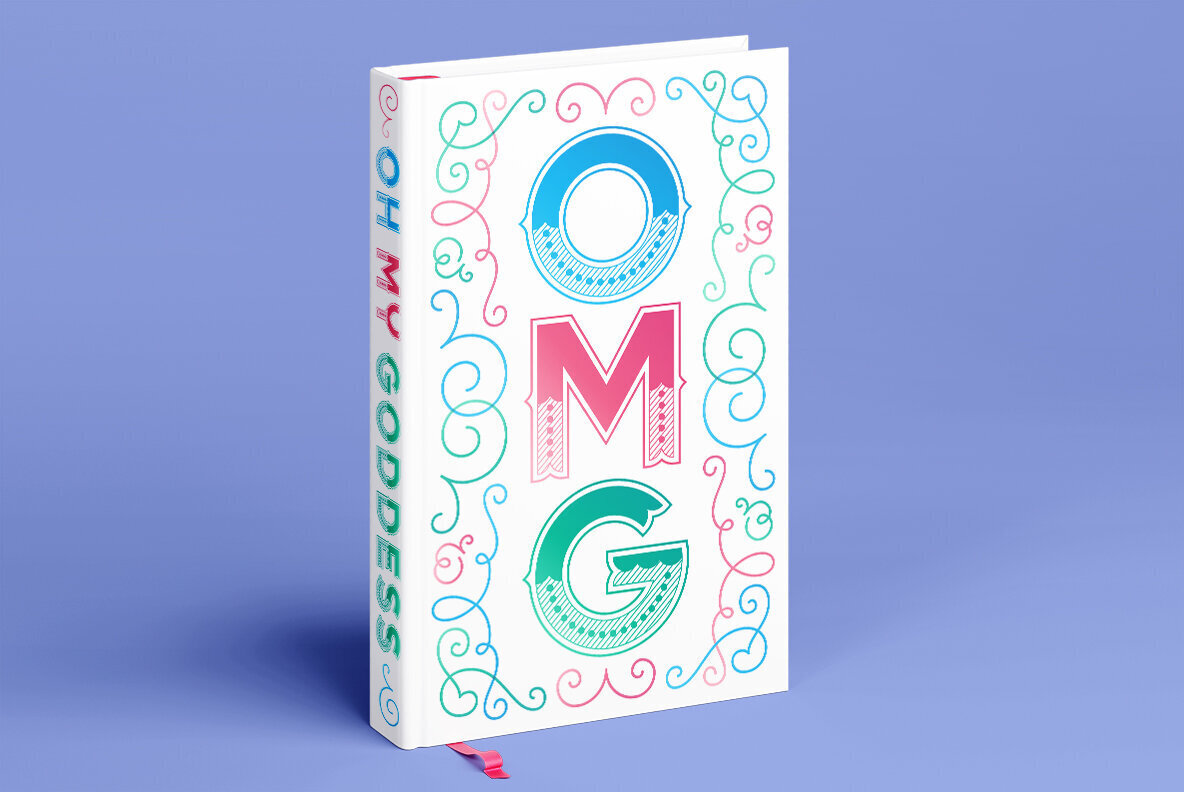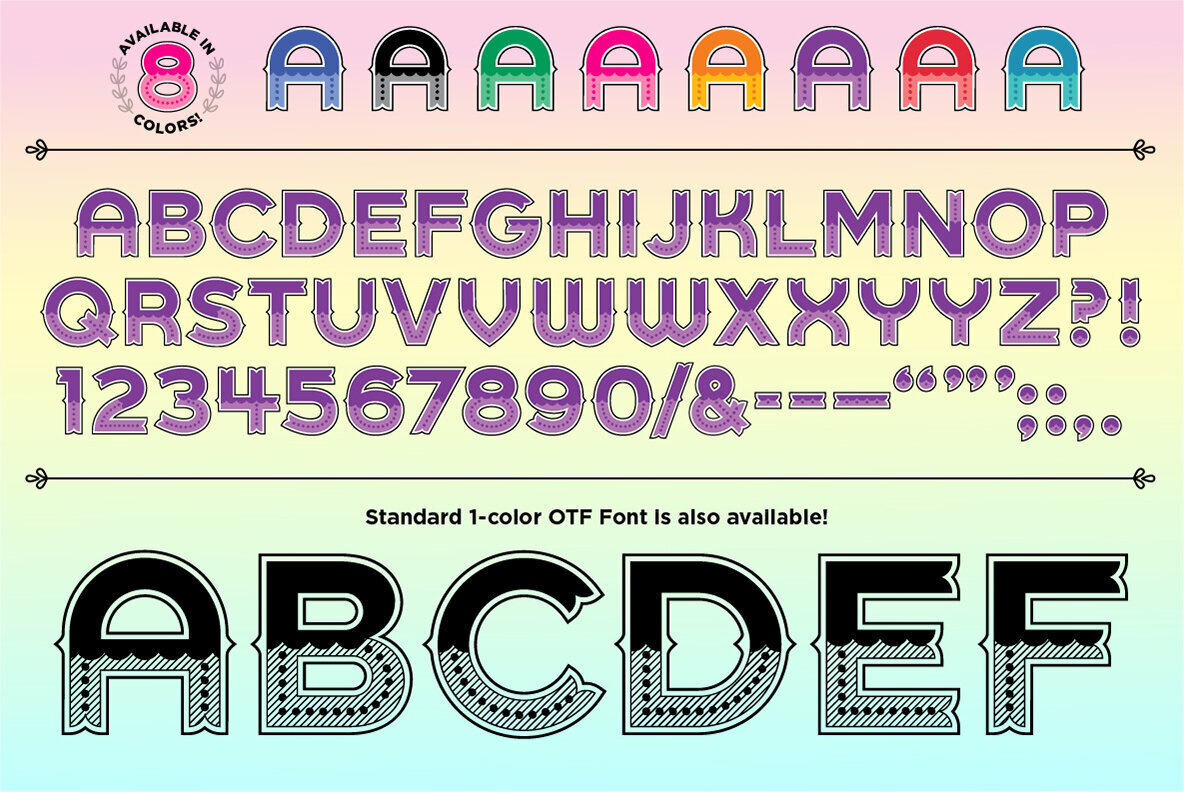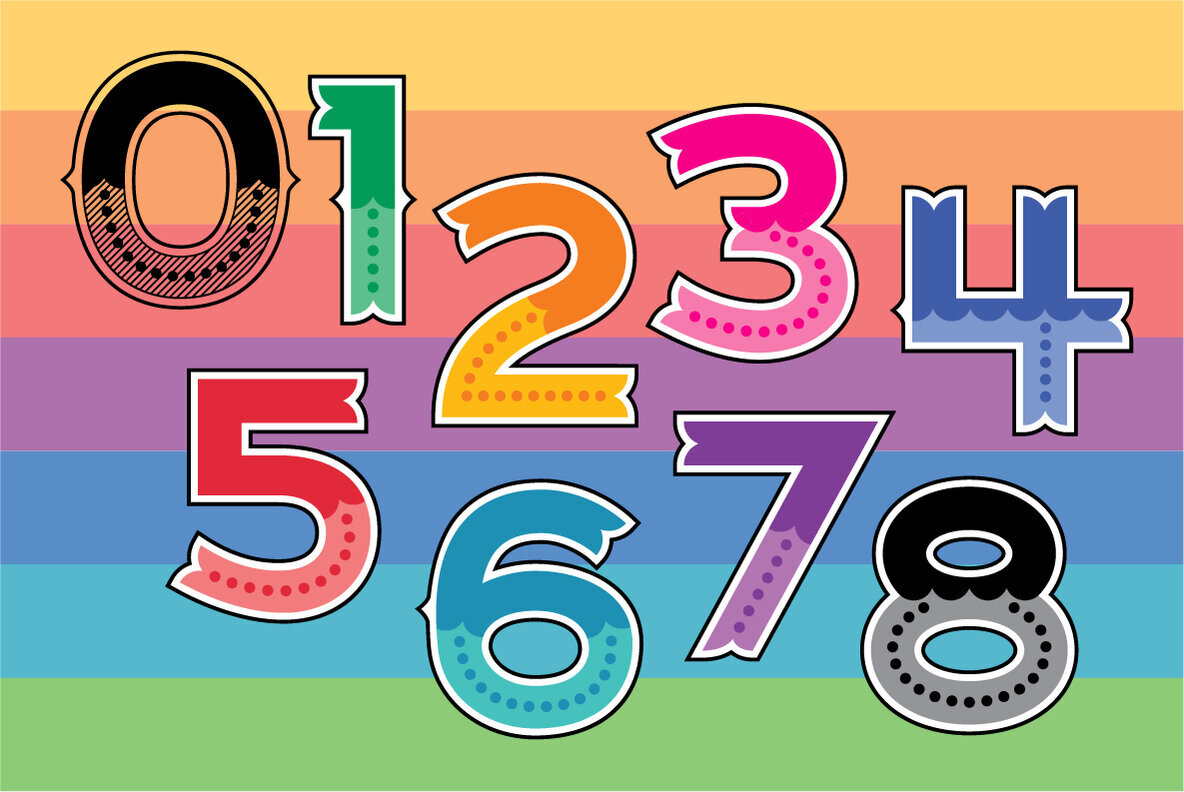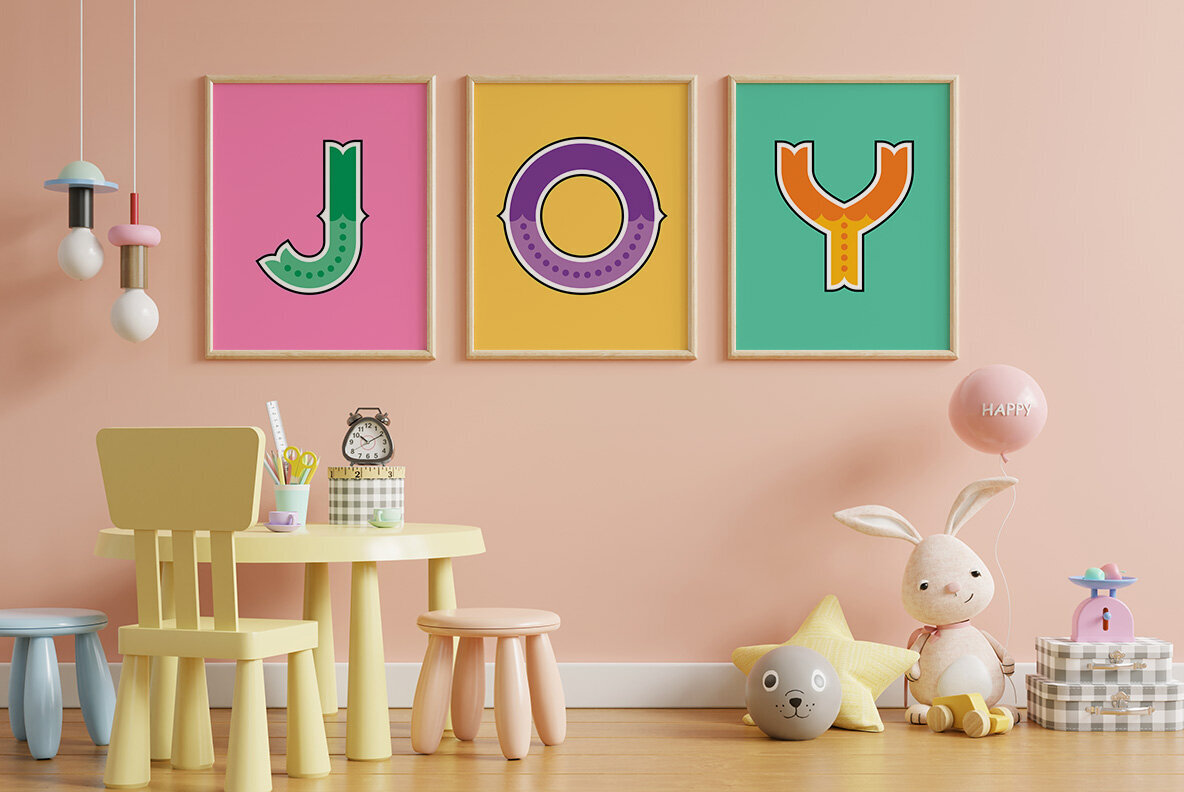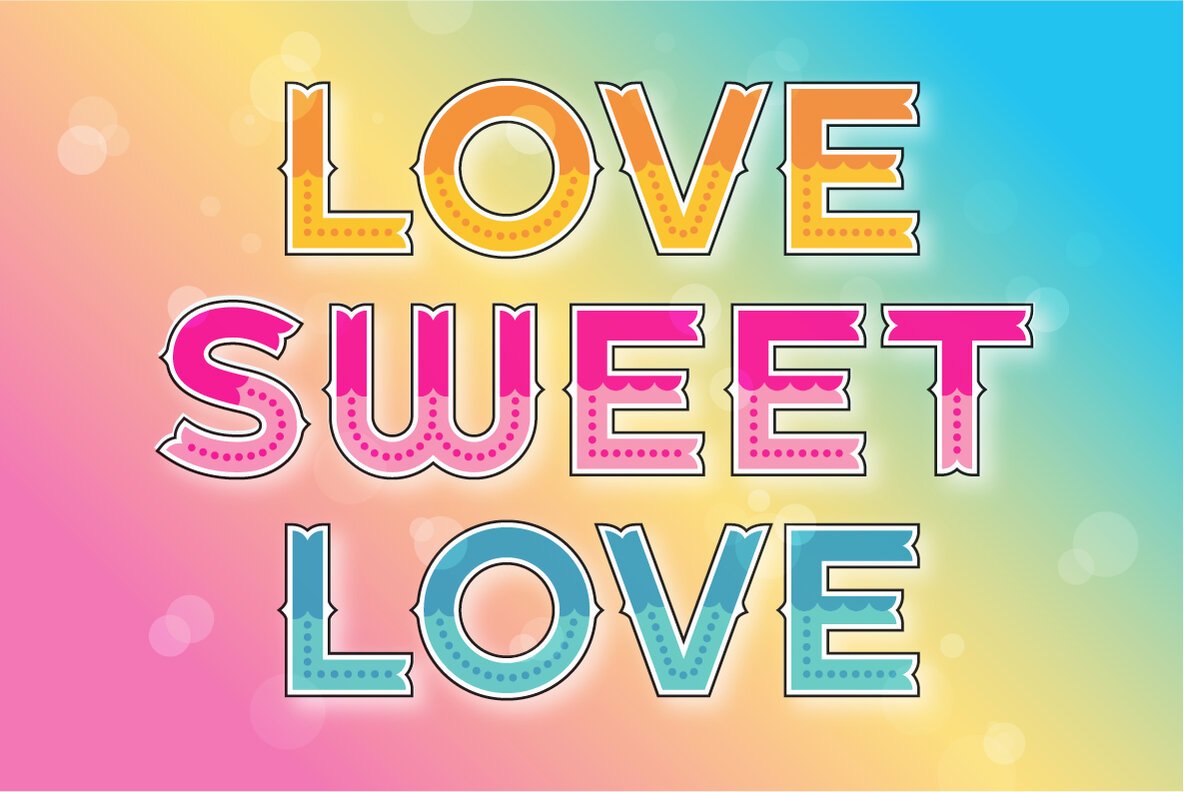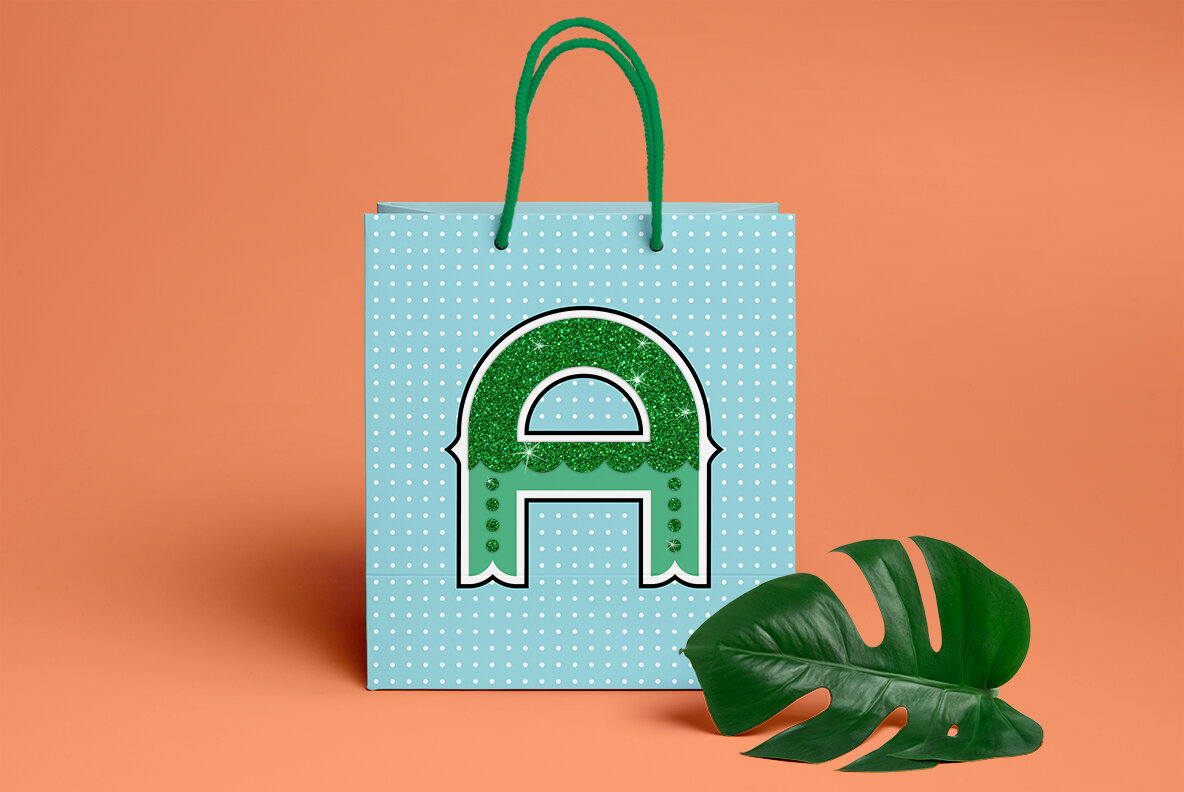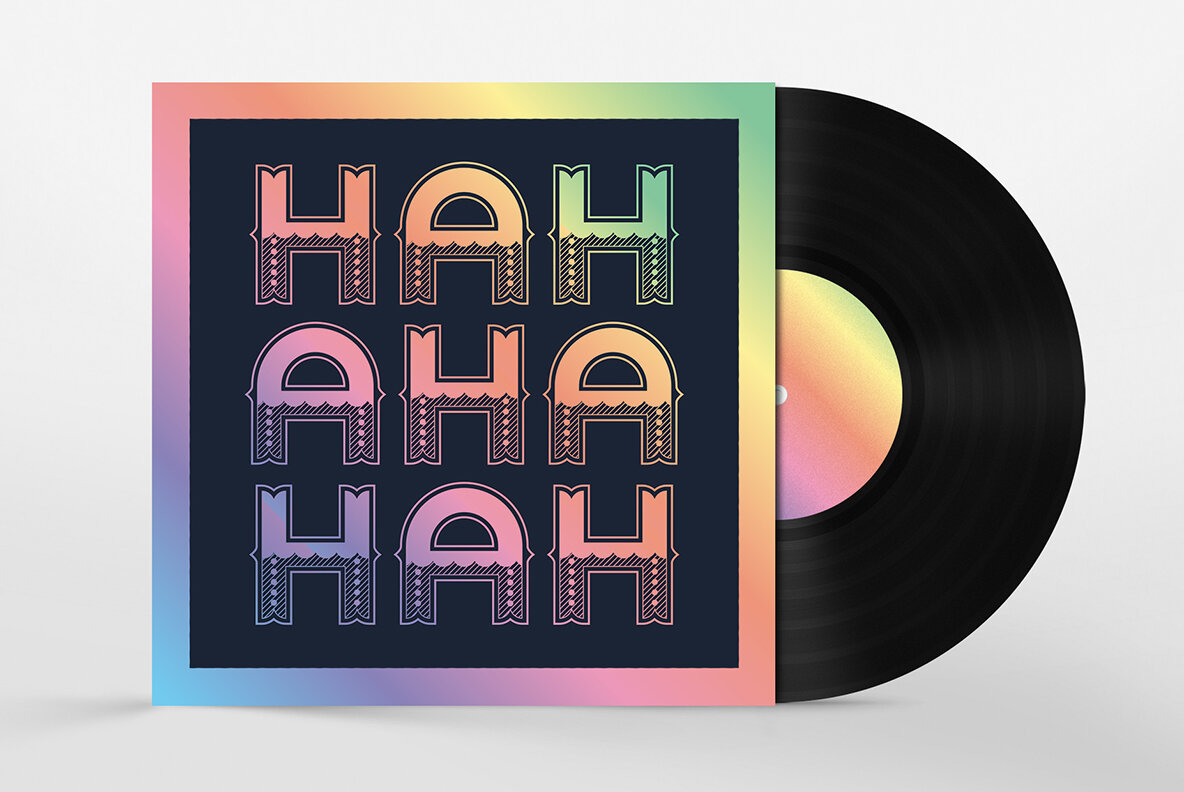
Happy Heart Outline SVG Font
Happy Heart Outline is an opentype SVG font that was birthed while I was in a painfully boring meeting and the only thing that was able to save me was my wandering mind and notebook. Inspired by ornate drop caps of beloved fairy tales and story books, as well as circus and carnival type, Happy Heart shapes its reverence into modern celebratory letterforms.
Happy Heart Outline comes in 8 colors as well as one-color standard OTF, with alternative versions offered for the letters V, W, X and Y. Because this is a decorative display font, characters provided are limited to all caps, numbers, and a handful of punctuation useful in titles. Unlike her sister font, Happy Heart Outline has an outline shape around each character.